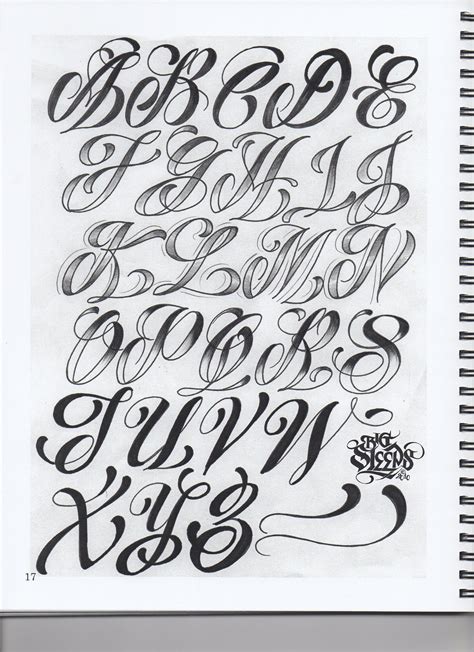
Tattoo Fonts Chicano, This text font is characterized by sharp, jagged edges, often filled in with dark color pigments for accents. Chicano includes uppercase and lowercase letters, numerals, a large range of punctuation and ligatures.
Chicano includes uppercase and lowercase letters, numerals, a large range of punctuation and ligatures. All lowercase letters include ending swashes and alternative font. This text font is characterized by sharp, jagged edges, often filled in with dark color pigments for accents.
Collection chicano font | tattoo style In order to use the beautiful swashes, you need a program that supports opentype features such as adobe illustrator cs, adobe photoshop cc, adobe indesign and corel draw. We have got 15 picture about original gangsta font generator images, photos, pictures, backgrounds, and more. Chicano includes uppercase and lowercase letters, numerals, a large range of punctuation and ligatures.
Chicano font chicano fonts chicano lettering tattoo chicano style tattoos. Collection chicano font | tattoo style Chicano includes uppercase and lowercase letters, numerals, a large range of punctuation and ligatures. 1 style 4.6 242 downloads. All lowercase letters include ending swashes and alternative font.
Chicano swash in order to use the beautiful swashes, you need a program that supports opentype features such as adobe illustrator cs, adobe photoshop cc, adobe indesign and corel draw. Buy here chicano tattoo style script font license: This script mashes cursive with an italicized b. Like the script fontsno tattoo font will be as realistic as handlettering. Also, what.
Download chicano font | tattoo style by muntab_art on envato elements fonts by muntab_art. We have got 15 picture about original gangsta font generator images, photos, pictures, backgrounds, and more. Chicano tattoo fonts are native to the country of mexico. Properties of chicano tattoos are black and gray color, fine lines, detailed. All lowercase letters include ending swashes and alternative.
Chicano swash in order to use the beautiful swashes, you need a program that supports opentype features such as adobe illustrator cs, adobe photoshop cc. 10000 search results for chicano tattoo font. Chicano includes uppercase and lowercase letters, numerals, a large range of punctuation and ligatures. This script mashes cursive with an italicized b. Chicano is a stylish font that.
Chicano includes uppercase and lowercase letters, numerals, a large range of punctuation and ligatures. This text font is characterized by sharp, jagged edges, often filled in with dark color pigments for accents. All lowercase letters include ending swashes and alternative font. Our online font generator will show your chicano font. It features a set of characters with creative curves and.